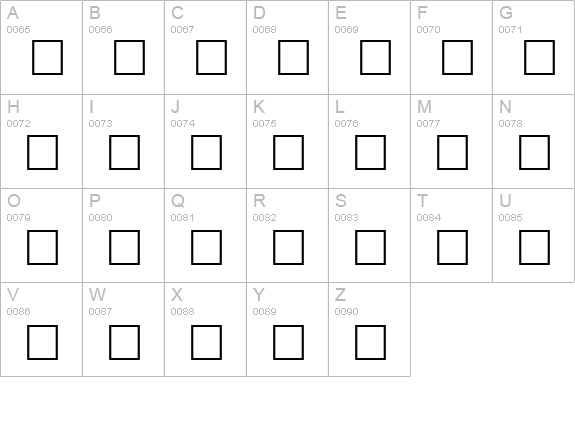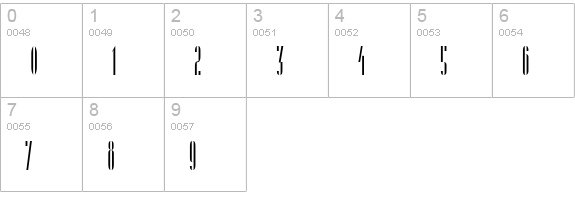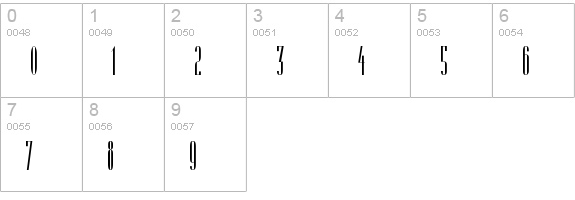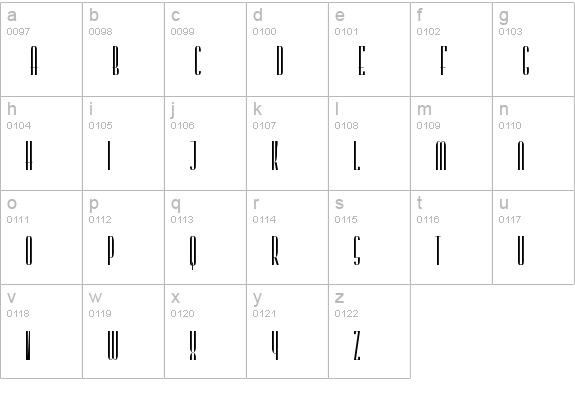
CajunQueen Font Details
Introducing CajunQueen font - a captivating and unique typeface that exudes a sense of Southern charm and flair. Inspired by the vibrant culture and rich heritage of Cajun cuisine, music, and traditions, this font boasts intricate details and playful curves that will bring a touch of personality to any design project. With its bold and eye-catching appearance, CajunQueen font is perfect for adding a touch of warmth and character to your branding, packaging, posters, invitations, and more. Whether you're looking to create a bold headline or add a quirky twist to your designs, this versatile font has got you covered. Best of all, CajunQueen font is available for free download at FontsMarket.com. So go ahead and add a touch of Cajun magic to your designs with this charming and delightful font today!